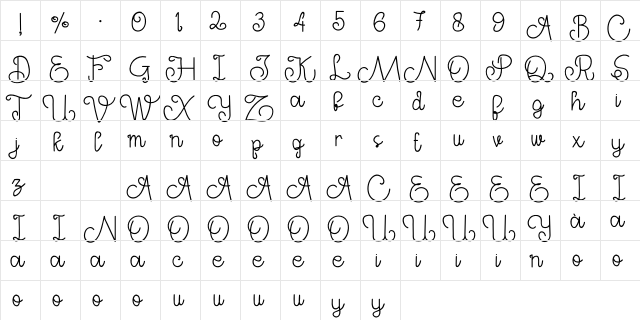
Mephistica Regular
Design Context for Mephistica Typeface
Mephistica is a composed and adaptable typeface that performs quietly and consistently across a wide range of design contexts.